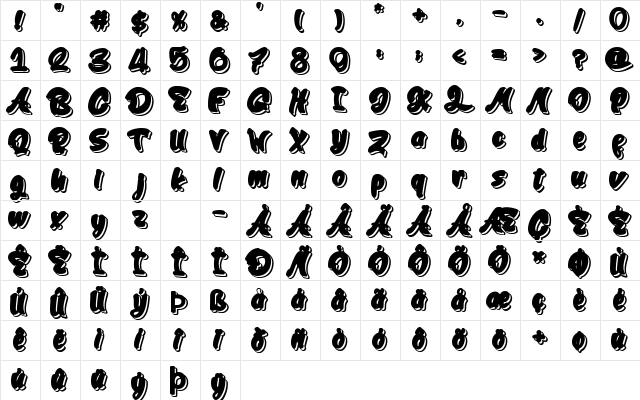
Cleanliness Power Regular
Design Context for Cleanliness Power Typeface
Cleanliness Power has the bold swagger of sports branding: strong, assertive letterforms designed to dominate headlines and jerseys alike.
A natural choice for gym brands, fantasy sports, jersey lettering, and action-driven headlines.
Pro Tip: Use Cleanliness Power in all-caps headlines where its athletic energy can fully express itself. Pair with a solid, simple sans for supporting text.